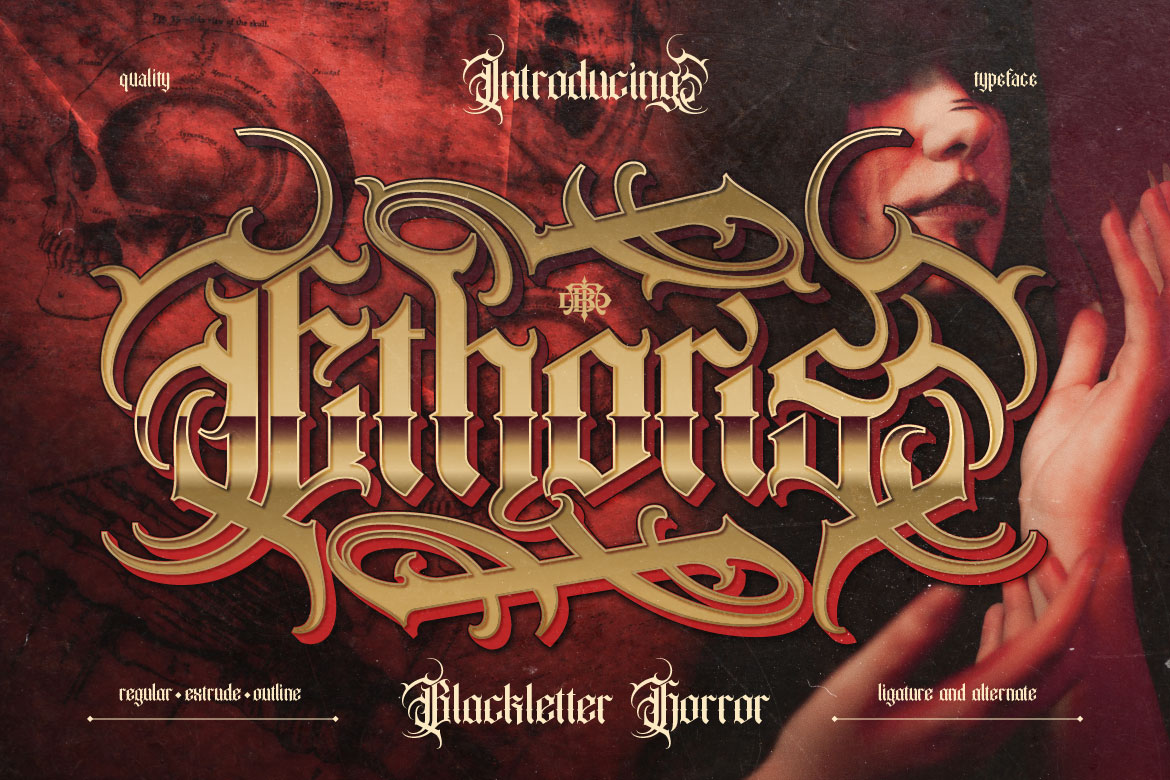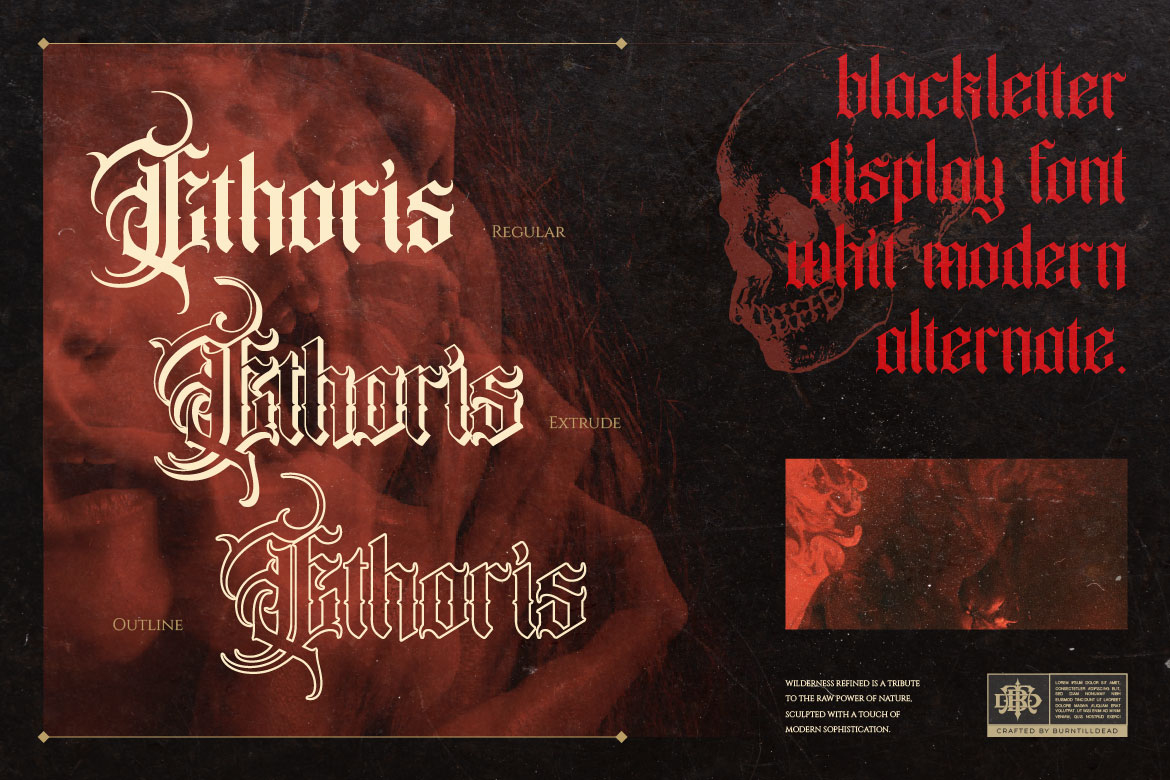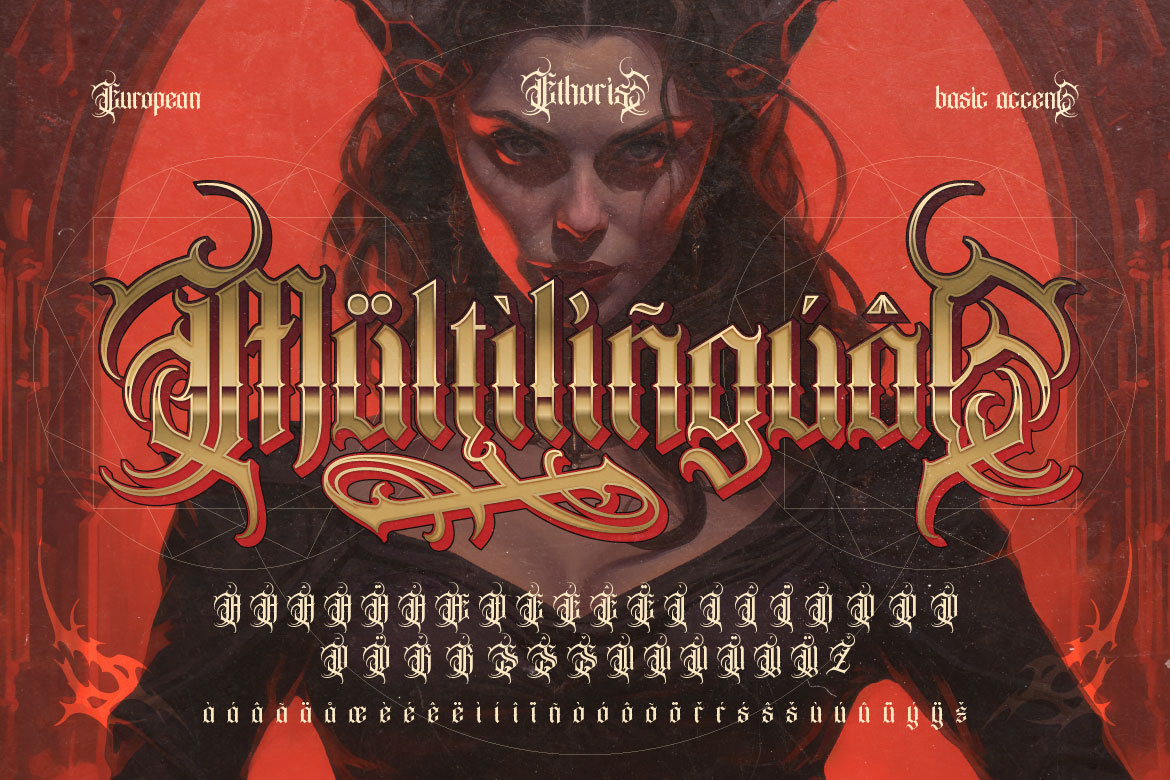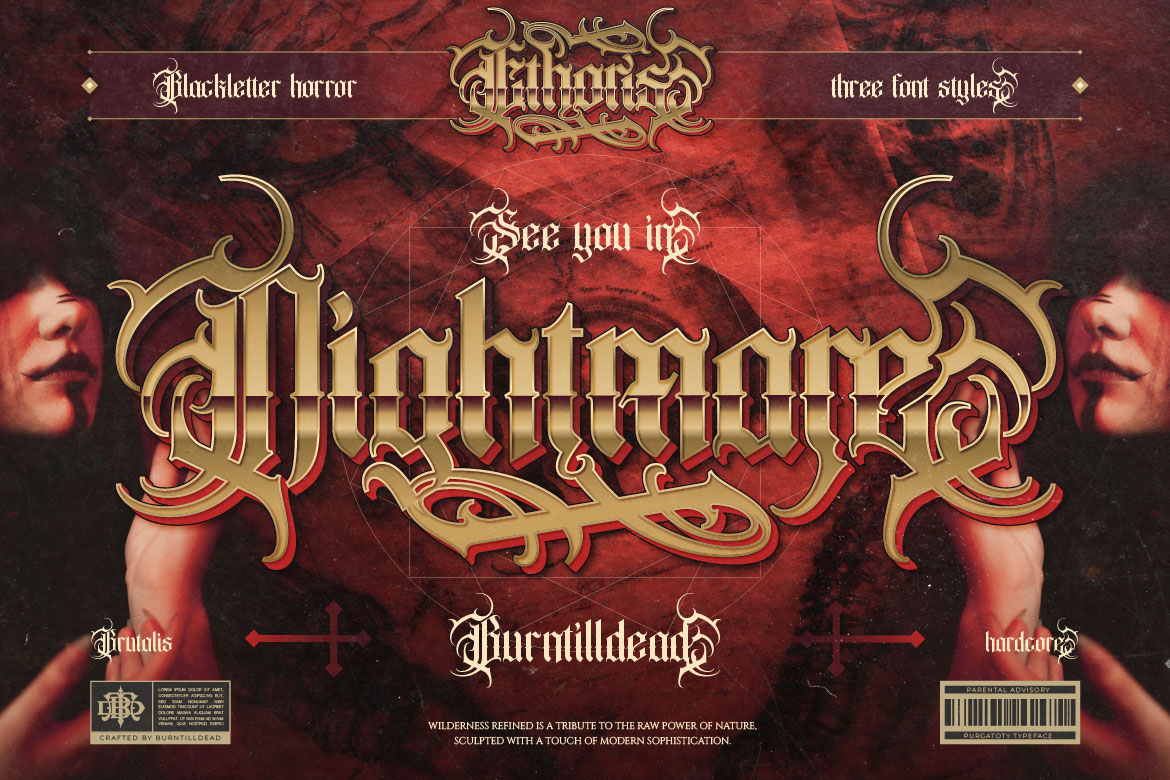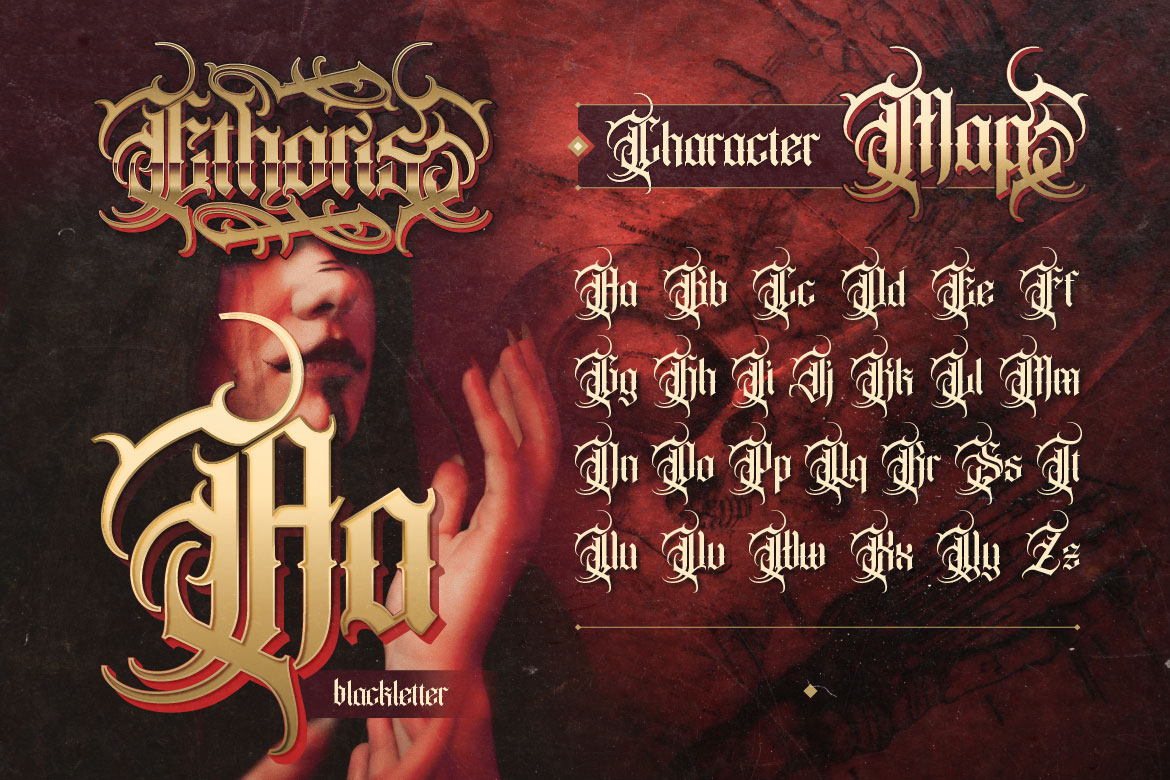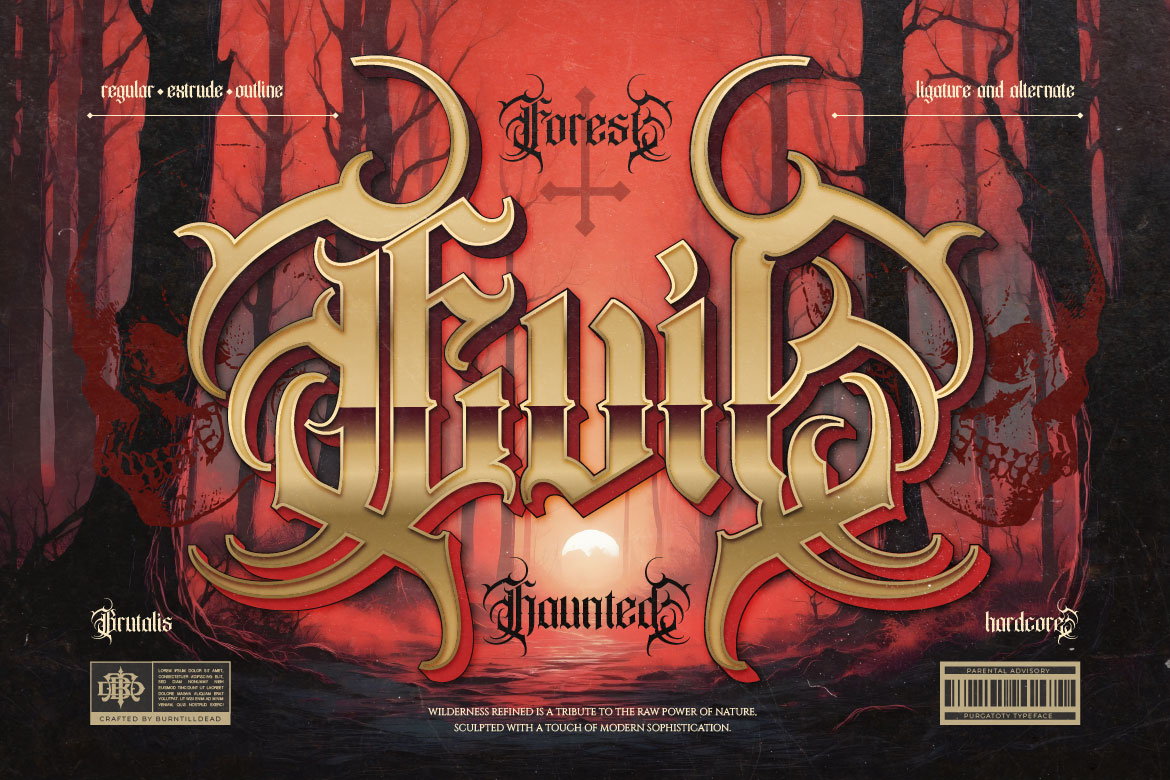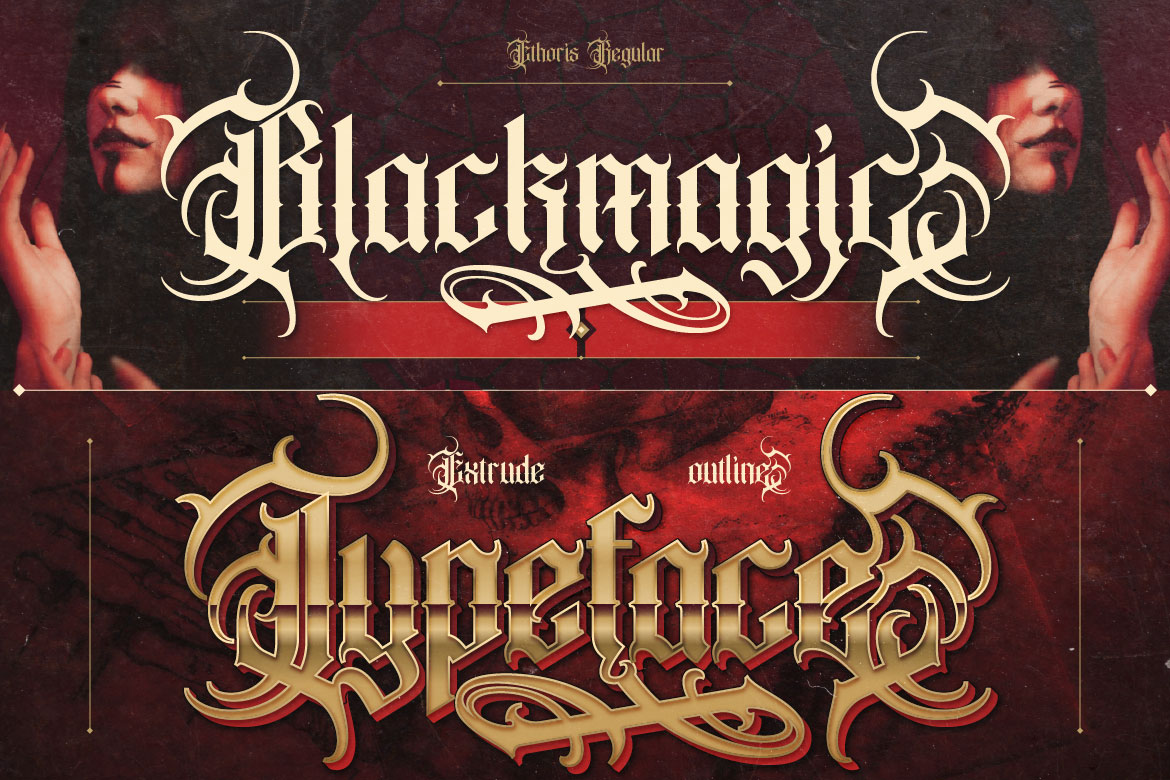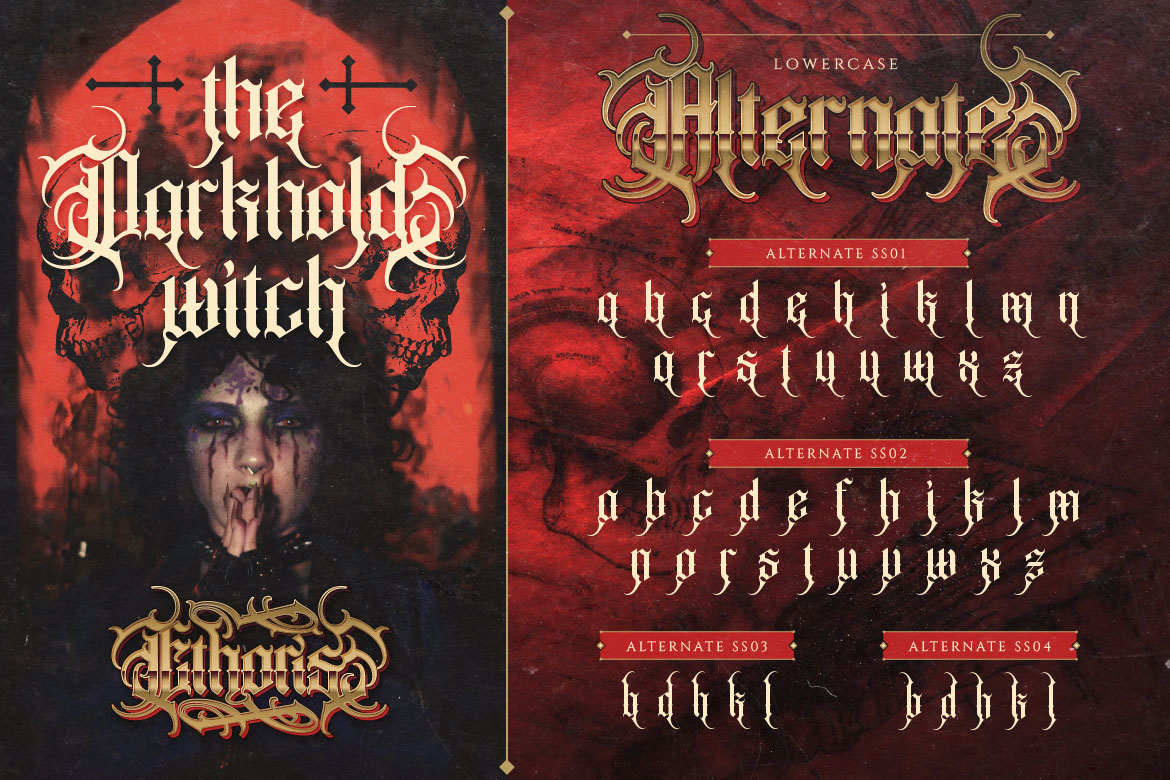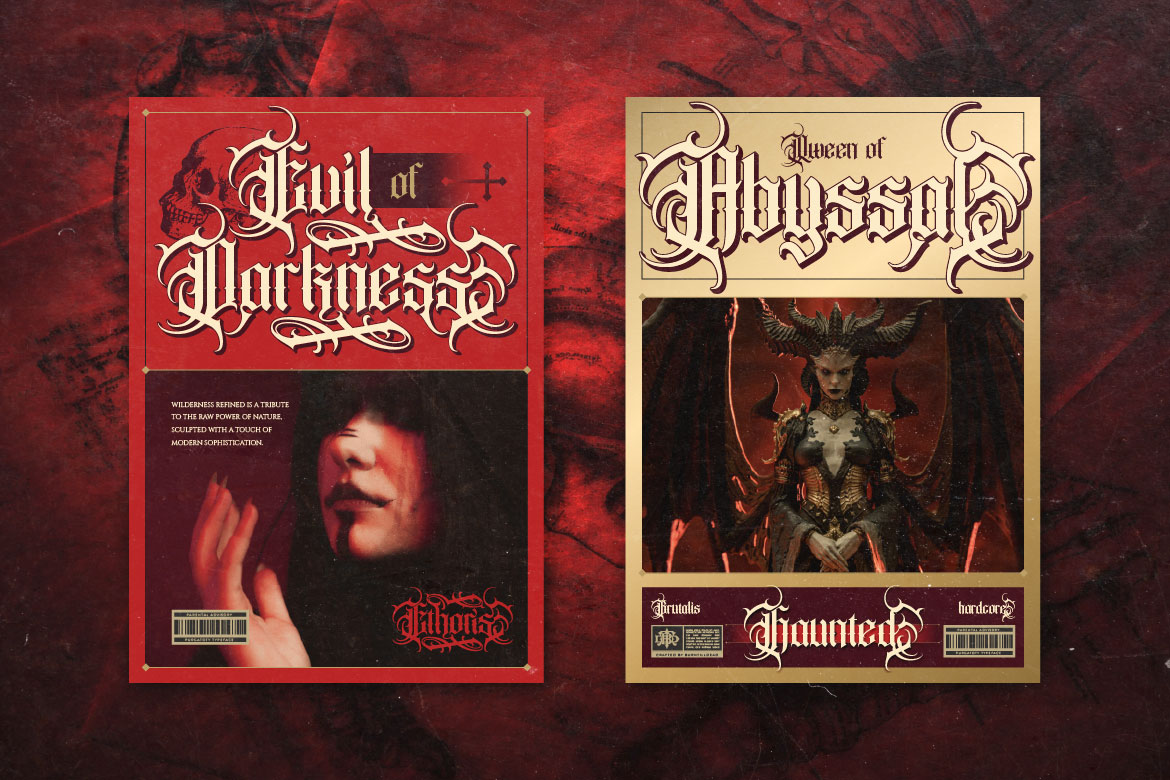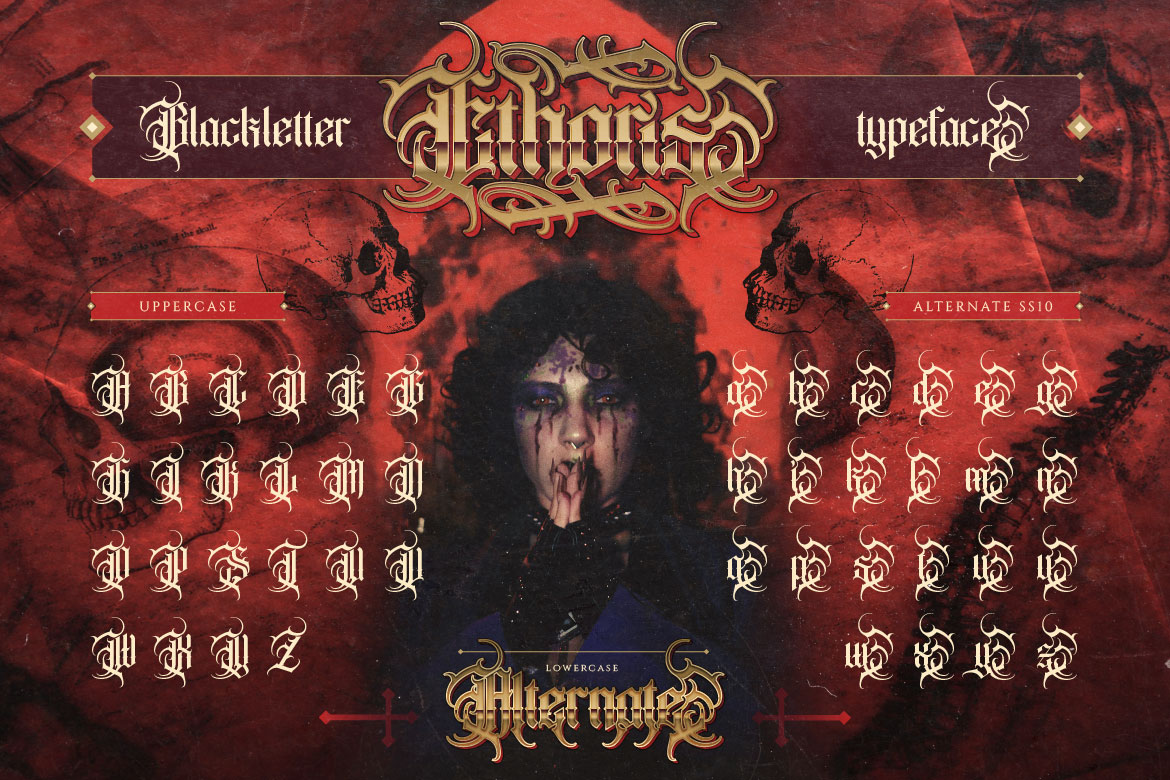
Ethoris – Blackletter Horror Display Font
Summon dark, visceral energy into your typography with Ethoris, a modern blackletter horror typeface handcrafted by Burntilldead Studio. Combining classic gothic calligraphy with aggressive sharp flourishes, thorn-like swashes, and a heavy brutalist structure, Ethoris is designed to command attention across dark aesthetic projects.
Ethoris comes fully loaded with 3 stackable font styles—Regular, Extrude (3D Shadow), and Outline—giving you absolute creative control to layer high-impact headers. Packed with rich OpenType features, including extensive stylistic alternates (SS01 – SS10) and custom ligatures, Ethoris allows you to build unique, hand-crafted gothic logos and band apparel effortlessly.
Perfect for:
- Black Metal, Hardcore & Deathcore Band Logos & Album Art
- Horror Movie Banners, Dark Fantasy Posters & Book Covers
- Gothic Streetwear, Heavy Metal Merch & Tattoo Apparel
- Halloween Event Graphics, Occult Posters & Editorial Layouts
- Underground Club Signage & Dark Aesthetic Branding